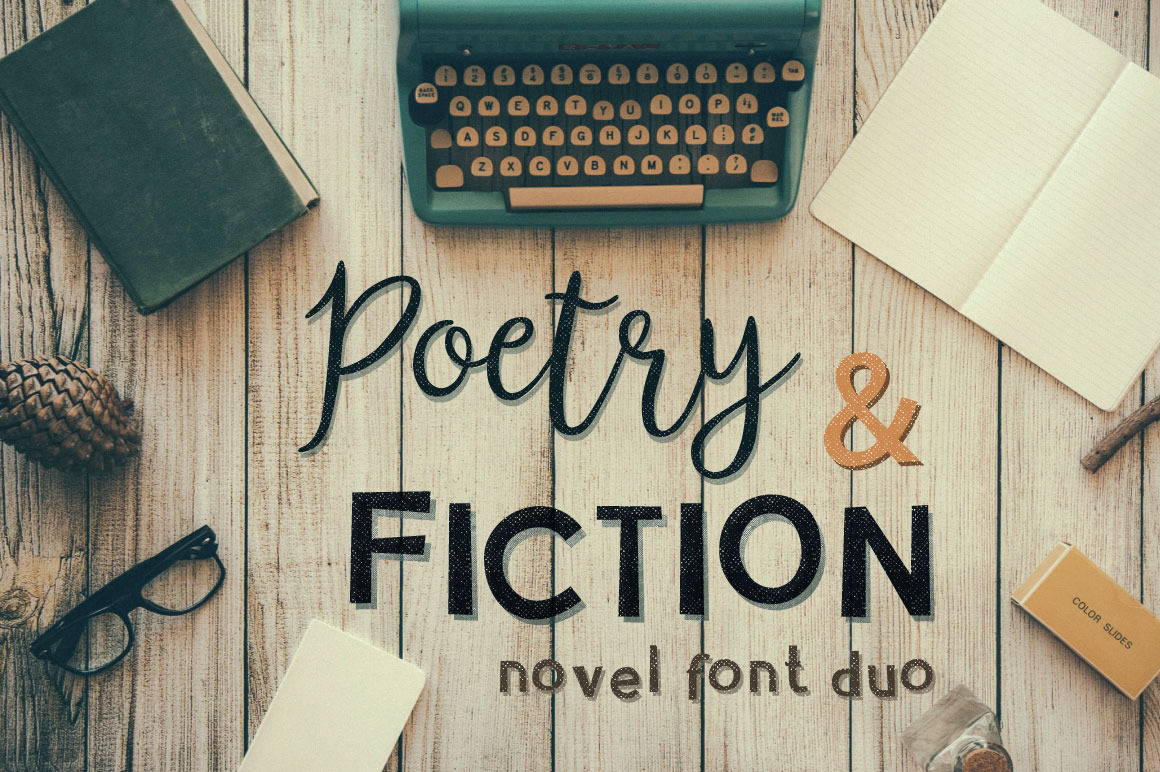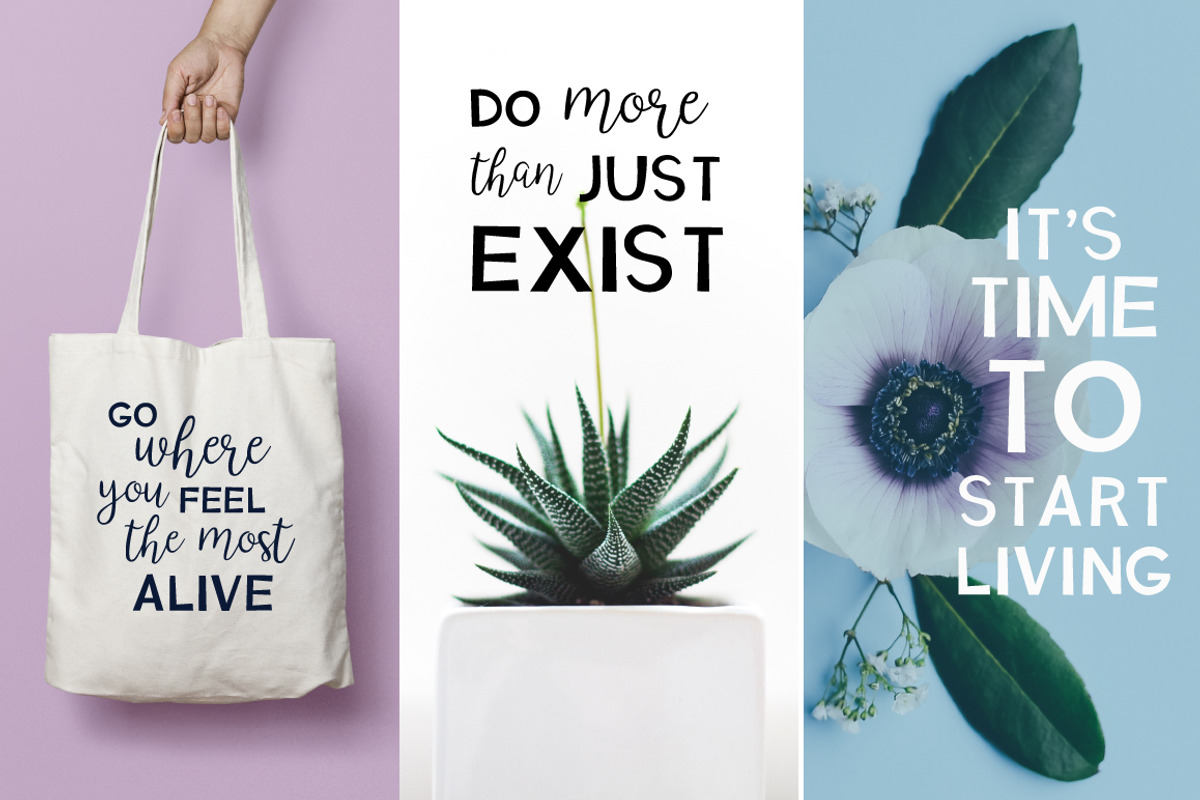
Poetry&Fiction novel font duo
★ The best choice for fiction lovers!★
Have you ever fall in love with book and, whether you are the author and the reader, you started to believe in the magic of literature? Have you ever thought everything that happens in the book happened to you? This is the great power, the miraculous magic of the art that allows us to dive fully into the world of imagination and come up a different person - self-realized something important, significant.
Our little creative duo loves not only reading, but also writing prose and poetry, so we decided to make font for the same people who can not imagine life without fiction.
Font: Poetry&Fiction is an emotive handwritten typeface, which will help you create a unique and sophisticated design, whether the cover of your book, brand new literary cafe or a quote on your blog. Fonts include multilingual support.
Poetry&Fiction Script is a script font, inspired by the novels and poetry of the 19th century, is perfect for use in romantic letters, sophisticated designs and vintage branding projects.
Poetry&Fiction Sans Serif is a sans serif font, created by cutting out letters from newspapers and stylized to create the effect of mystery and secrecy - it is great for article titles, logo design and product packaging.